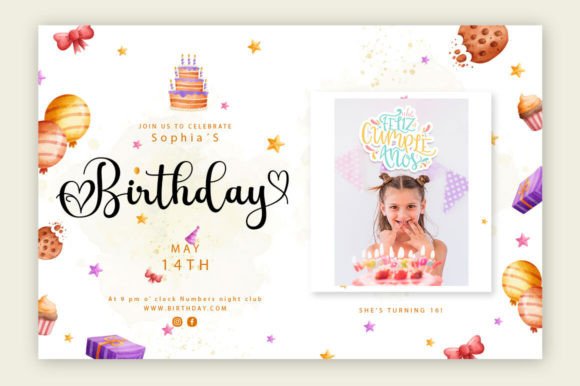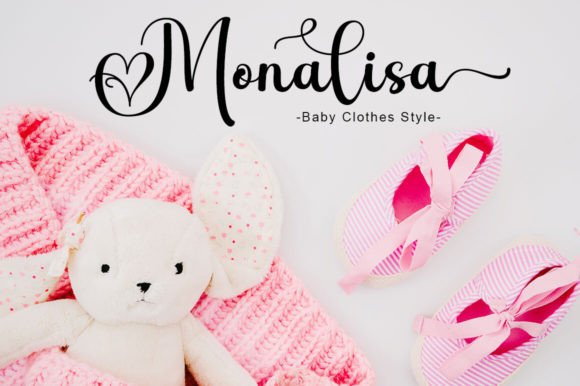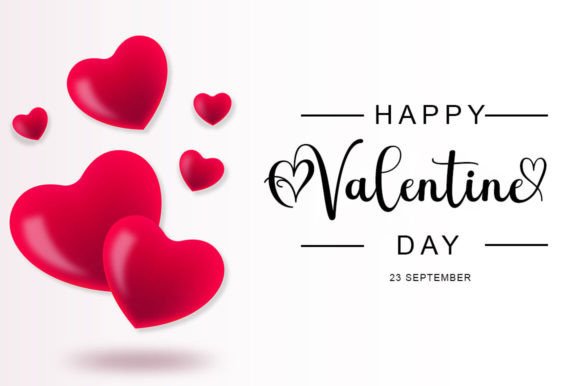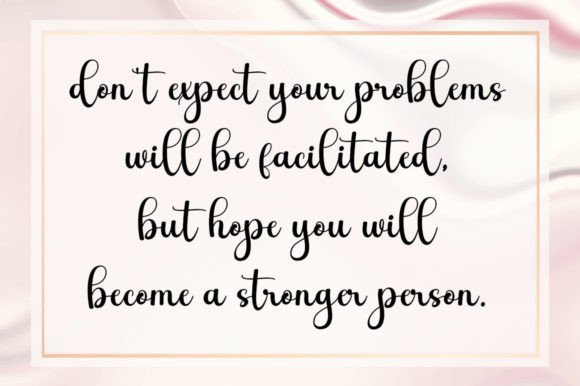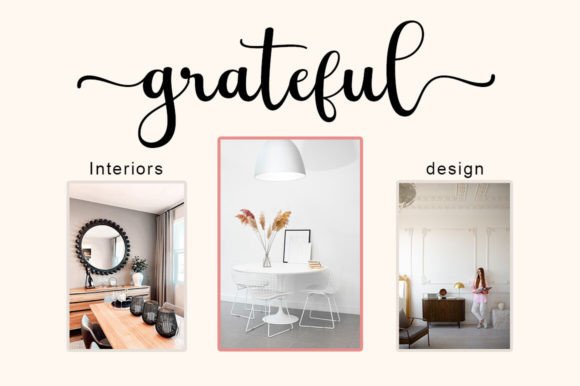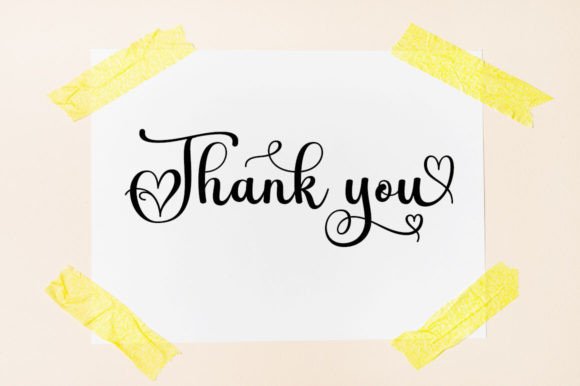
Nayla Font
Nayla Script – is a Fresh and modern font script with a handwritten calligraphy style, decorative characters, and a dancing baseline! So beautiful on the invitation like greeting cards, branding materials, business cards, quotes, posters, and more!